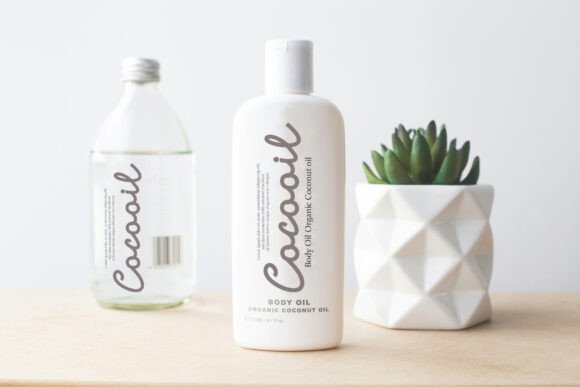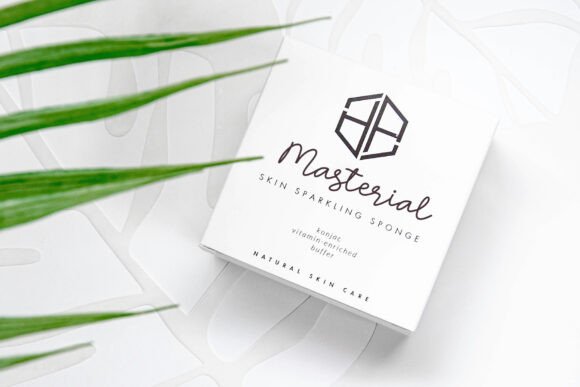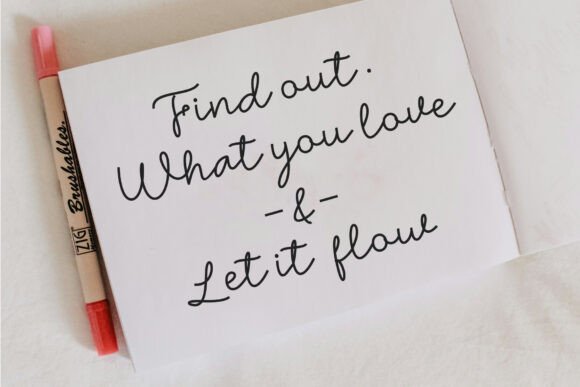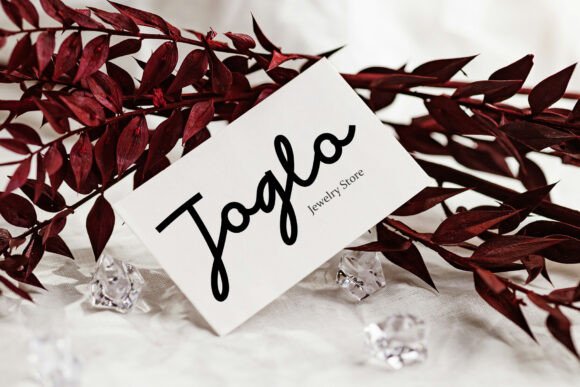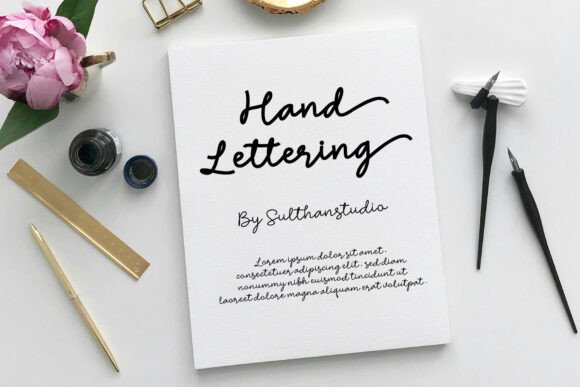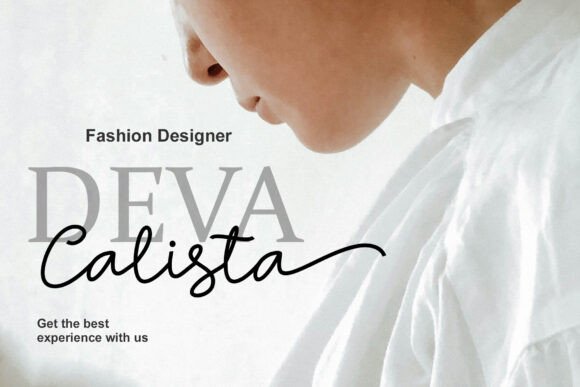
Unleash the Art of Handwritten Elegance with Beritta Font
In the realm of typography, few fonts manage to capture the essence of craftsmanship as exquisitely as the Beritta Font. This stunning handwritten font is a masterpiece that offers two distinct styles – regular and bold – allowing designers and crafters to infuse their projects with a unique touch of personality and authenticity. With Beritta, the power to captivate and inspire your audience is literally at your fingertips.
The Beauty of Handwritten Text
Beritta Font is a testament to the beauty and elegance of handwritten text. In an era dominated by digital communication, the personal touch of handwritten fonts can make a project stand out, conveying a sense of warmth and individuality that is often lost in standard typography. Beritta brings this beauty straight to your design canvas, offering an agile and versatile solution that blends seamlessly into various design contexts.
Two Distinct Styles for Diverse Design Needs
One of the standout features of the Beritta Font is its offering of two distinct styles: regular and bold. This range allows designers to play with contrasts, creating visual hierarchies and adding depth to their designs. The regular style is perfect for body text or for designs where a subtle, elegant touch is desired, while the bold variant is ideal for headings, titles, or any section where you want to draw attention.
Unmatched in Uniqueness and Aesthetic Appeal
What sets Beritta apart from other fonts is its unmatched uniqueness and aesthetic appeal. In a sea of generic fonts, Beritta shines with its distinctive character, ensuring that your projects are anything but ordinary. Its design embodies a sense of sophistication and simplicity, making it a versatile tool for a wide range of projects, from branding and advertising to packaging and digital media.
Crafted Diligently for Quality and Consistency
The creation of Beritta Font was a labor of love, crafted diligently to ensure quality and consistency across all its characters. This attention to detail means that whether you’re working on a large-scale branding campaign or a small craft project, Beritta will perform exceptionally, bringing a level of professionalism and polish that elevates your work.
Blending Seamlessly for a Lasting Impression
Beritta’s agility in blending seamlessly with various design elements is another one of its key strengths. Whether you’re combining it with images, illustrations, or other typography, Beritta integrates effortlessly, ensuring that your projects have a cohesive and harmonious look. This ability to blend, combined with its inherent aesthetic appeal, guarantees that your projects will leave a lasting impression on your audience.
Where Sophistication Meets Simplicity
The Beritta Font strikes the perfect balance between sophistication and simplicity. Its design is not just about making a statement; it’s also about enhancing the readability and flow of your text. This balance makes Beritta an excellent choice for designers and crafters who are looking for a font that can add a touch of elegance without overpowering the content.
Empowering Designers and Crafters
Beritta Font is more than just a typographical tool; it’s a means of expression and creativity. By incorporating Beritta into your projects, you’re not just choosing a font; you’re embracing a design philosophy that values individuality, craftsmanship, and aesthetic appeal. Whether you’re a seasoned designer or a passionate crafter, Beritta empowers you to create works that resonate with your audience on a deeper level.
In conclusion, the Beritta Font is a remarkable addition to any designer’s or crafter’s toolkit. Its unique blend of elegance, versatility, and aesthetic appeal makes it an unmatched choice for projects that demand a touch of personality and authenticity. By choosing Beritta, you’re not just selecting a font; you’re opting for a design solution that brings the sublime artistry of handwritten text to your canvas, ready to captivate and inspire your audience.